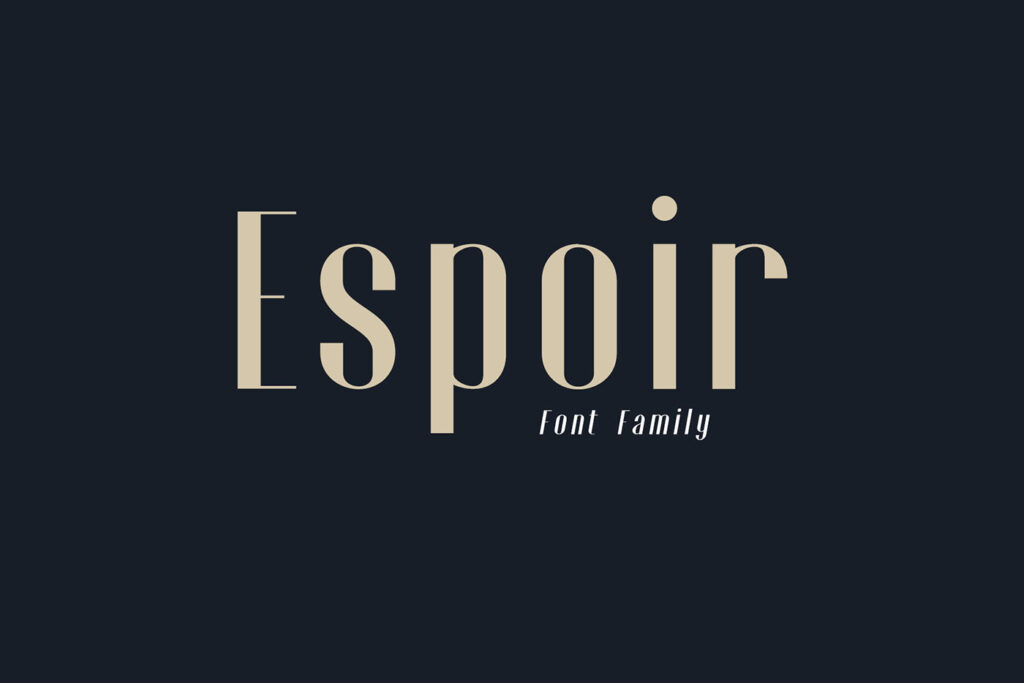
Introducing Espoir font family is an Elegant and Fancy Font. The font designer, Wahyu Hadi Yuana, was inspired by the engraving fonts of the late 19th century. Espoir is based on the compact solid font, by combining a variety of styles. Espoir font family offers an attractive tool for producing elegant decorative lettering, for example, for book covers or for posters and packaging.